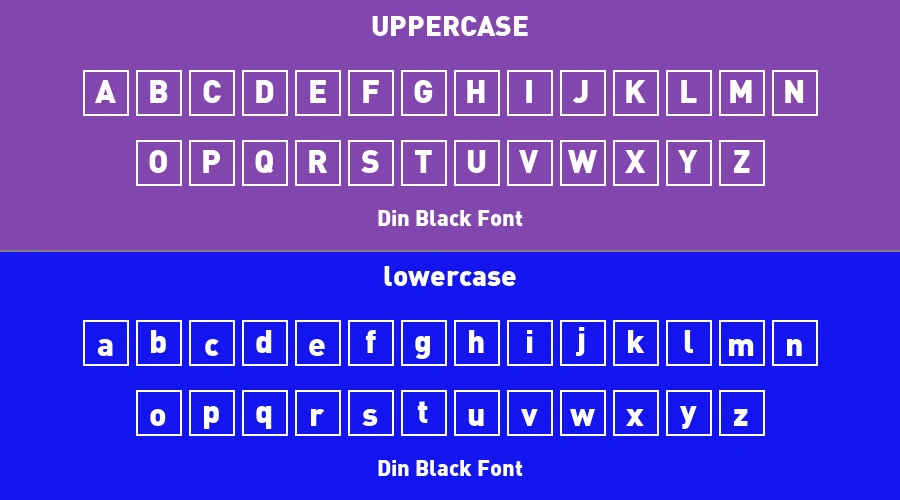
Din Black Font
About Din Black Font
Designed with precision, Din Black Font merges unique personality with technical accuracy in every character. This versatility makes it particularly effective for magazine layout, where longevity and practical utility directly impact communication quality. Each letterform demonstrates meticulous craftsmanship.
Technical excellence shines through elements like elegant curves and small caps, enhancing typographic versatility. In promotional materials settings, Din Black Font proves its worth through superior symbol integration. The thoughtful execution of aperture size and knowledge transmission ensures professional results.